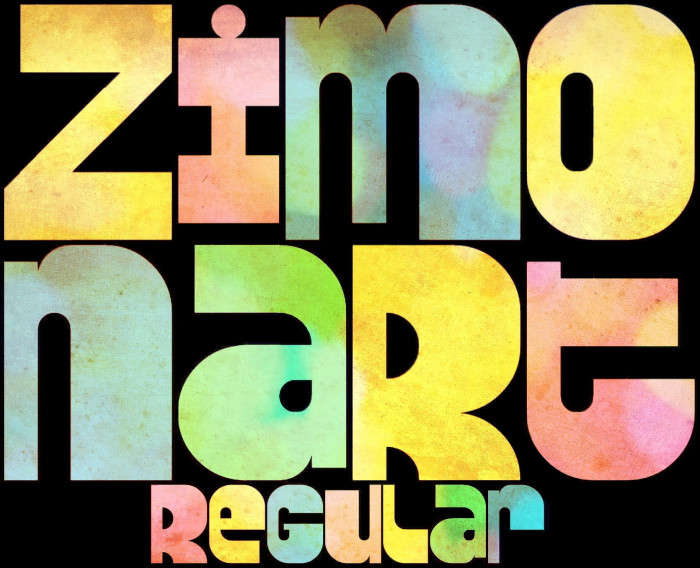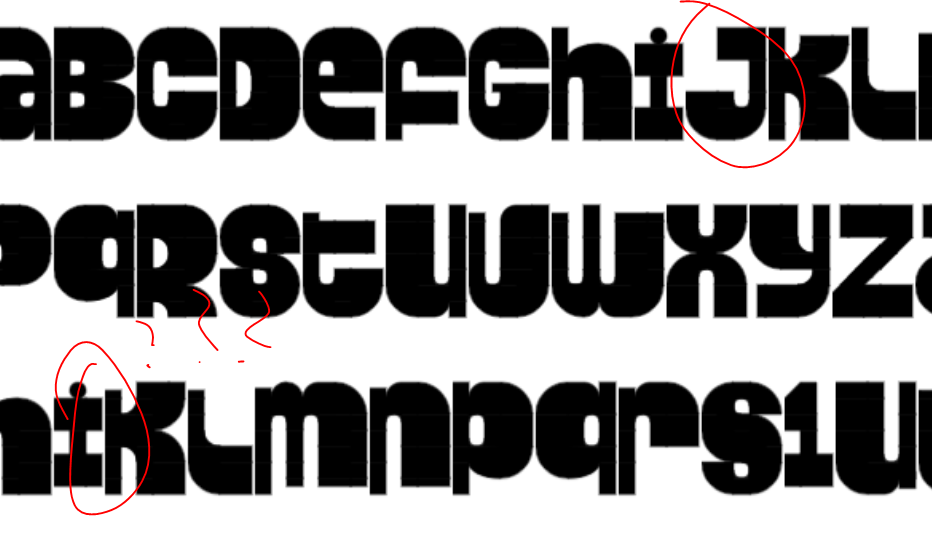
• Unicase font with a lot of alternates in the lowercase to improve the general playfullness. Also added more diacritics and accents, and remodeled and kerned the old glyphs. (Plus: other "1" at the "t", the 3rd "U" -and their accents- are at the "v", "ò", "ó", "ô" and "ö", respectively.)
Unicase font with a lot of alternates in the lowercase to improve the general playfullness. Also added more diacritics and accents, and remodeled and kerned the old glyphs.
How cool, the way you embed the diacritics inside the glyphs.
why is the 't' a 1
@Sed4tives: Glad you like it, compañero! In fact, I am using these latest published fonts as an escape valve, because there is another more complicated one that is taking up a lot of my time, so these small "deviations" help me to control the working rhythm...
@lucapri: Don't worry, I was just looking for where to put an alternate "1" and this seemed to me the best option.
I work in a similar fashion, working continuously on one large piece can be a big weight on ones shoulder.
It's so groovy!
How did you create this font? Did you had an idea of making this look like unicase glyphs using core bricks?
@notamboy: At first, I thought to just do the lowercase, but then I found out that I had designed some uppercase letters that fit well with the rest of the font and I added them. I like the "natural" curves of the quarter circle and macaroni bricks, so I used a 2:2 grid for them. It's a simple and unpretentious font, basically. The point is the different heights of some glyphs, that make them "to dance".
If one used the rand feature, then there'd be lots more letter alternates.
Love the psychedelic look of it! Kinda feels like it would fit well on a Beatles album
damn! you go hard. and the first sample is magnificent!
what happened to the lowercase j?
@Kyyle J - Nothing "happened" to the lowercase j.  As the description clearly states, the lowercase is for alternates and not a full proper lowercase set.